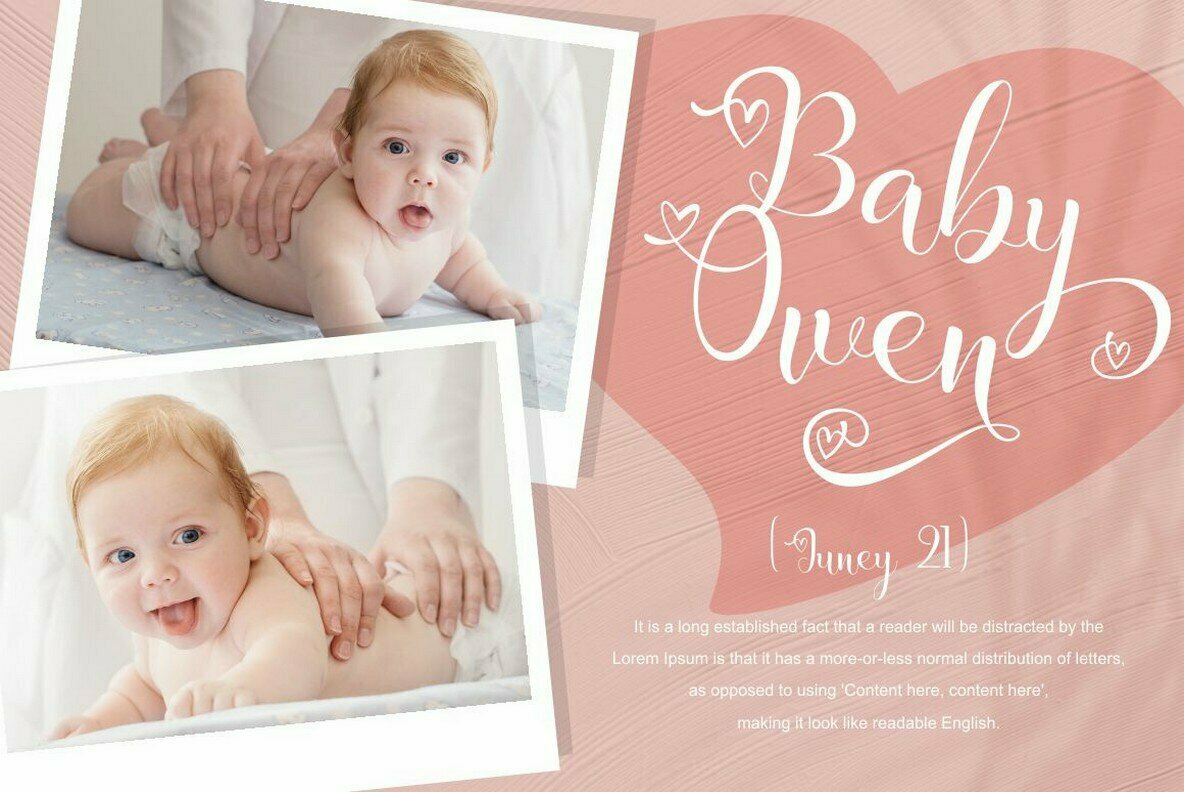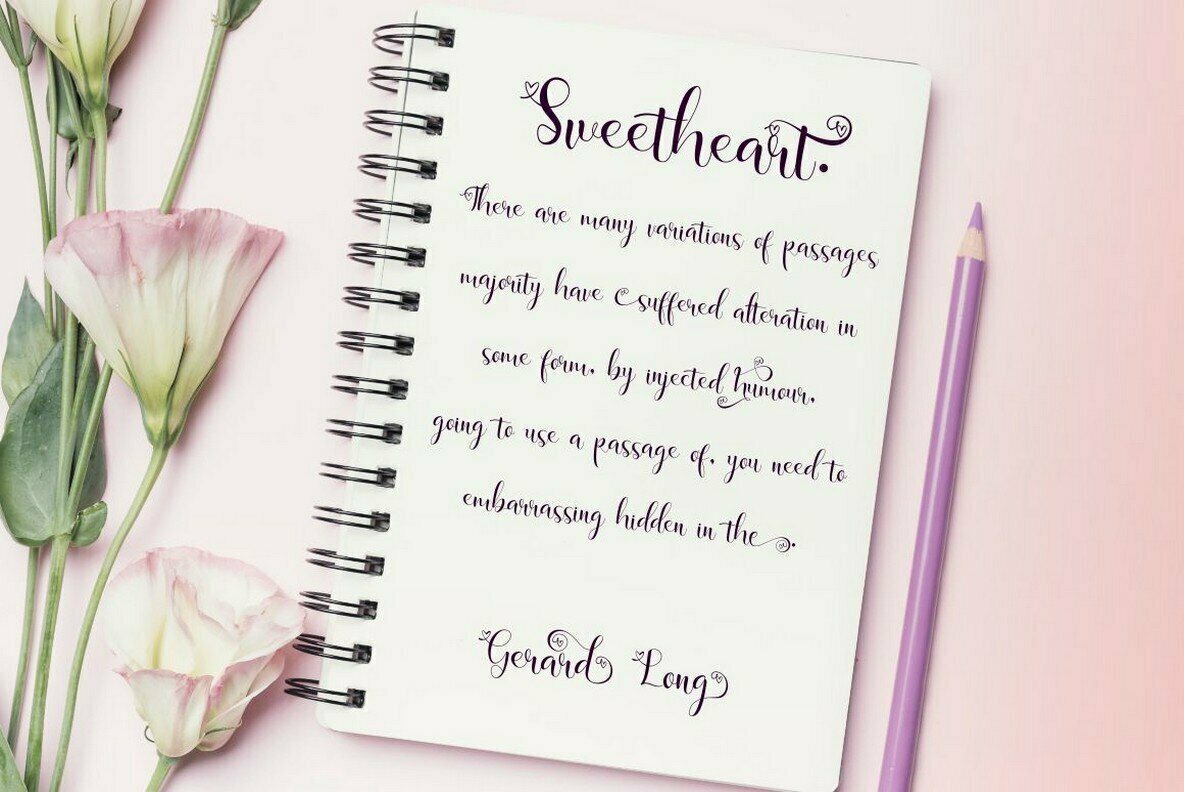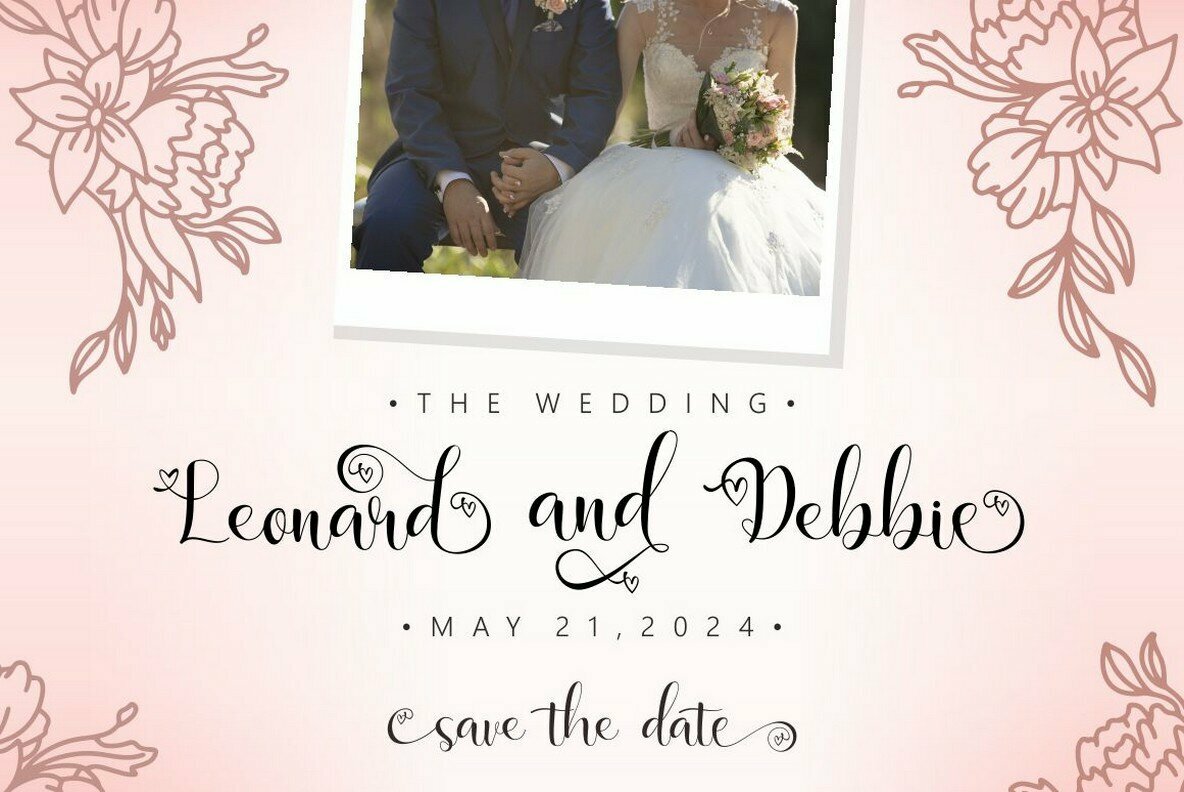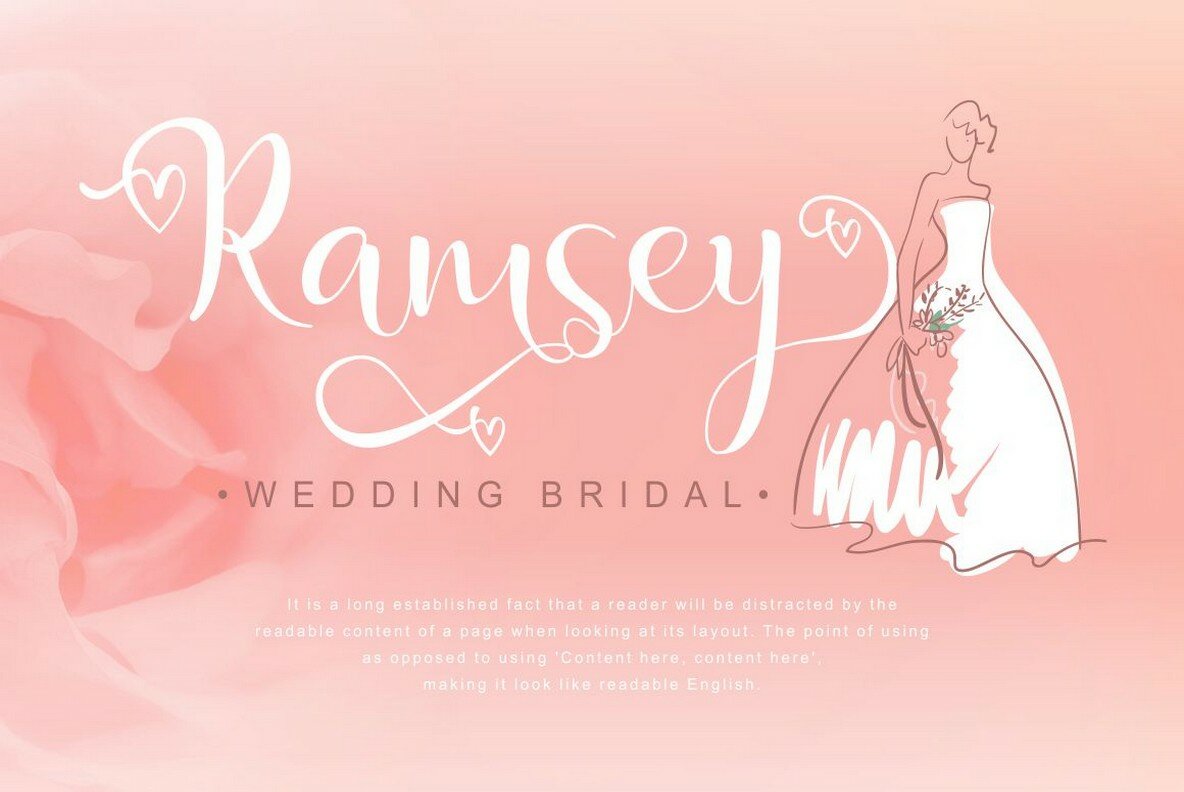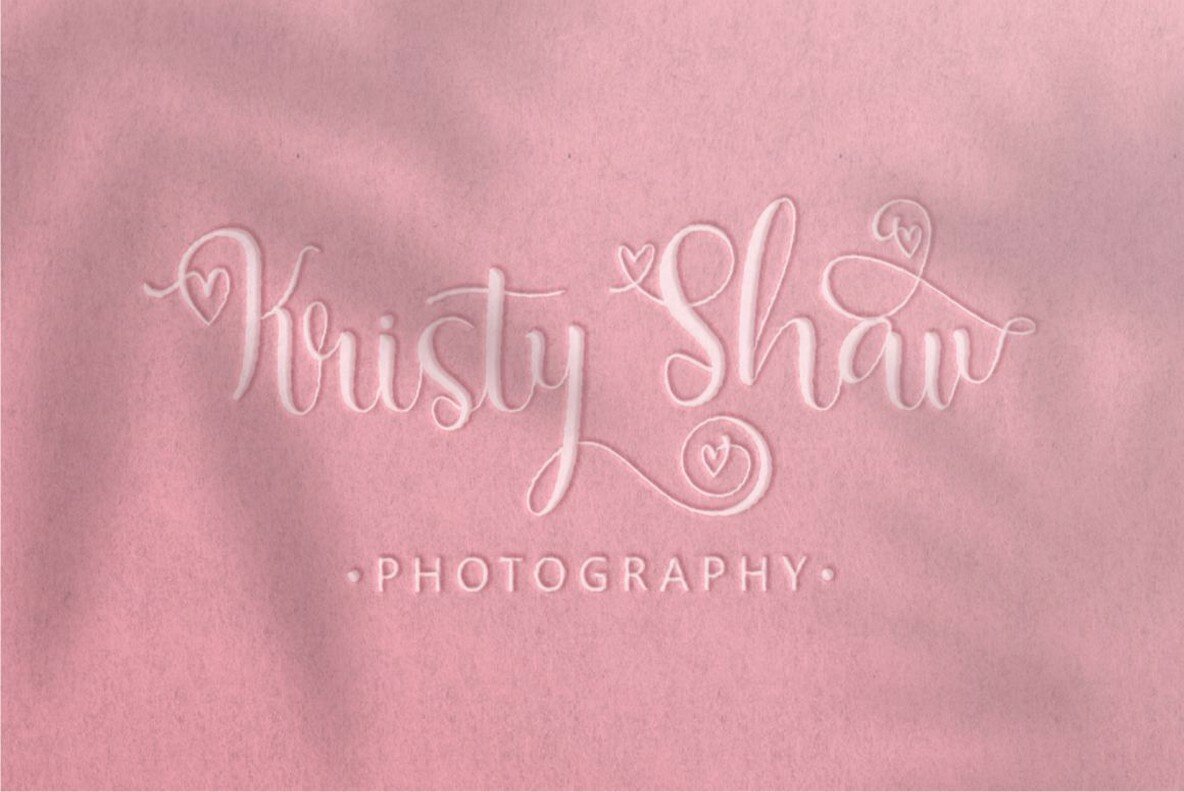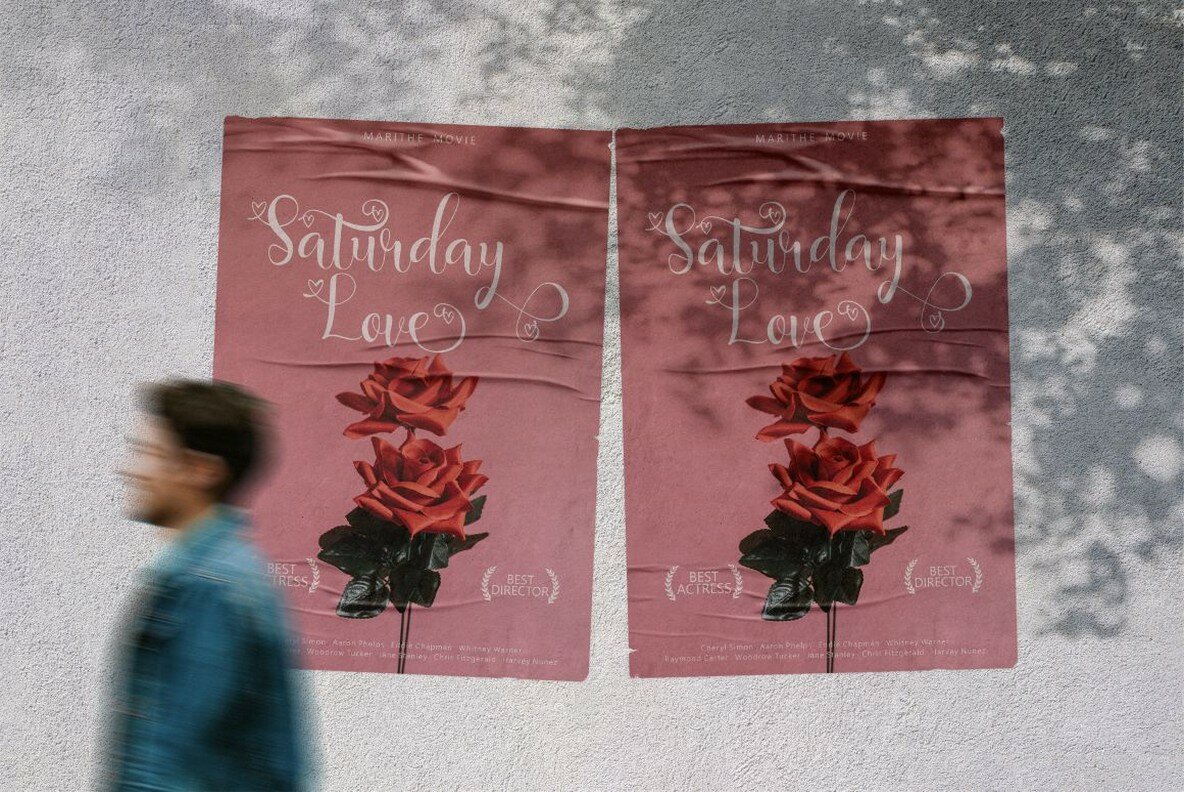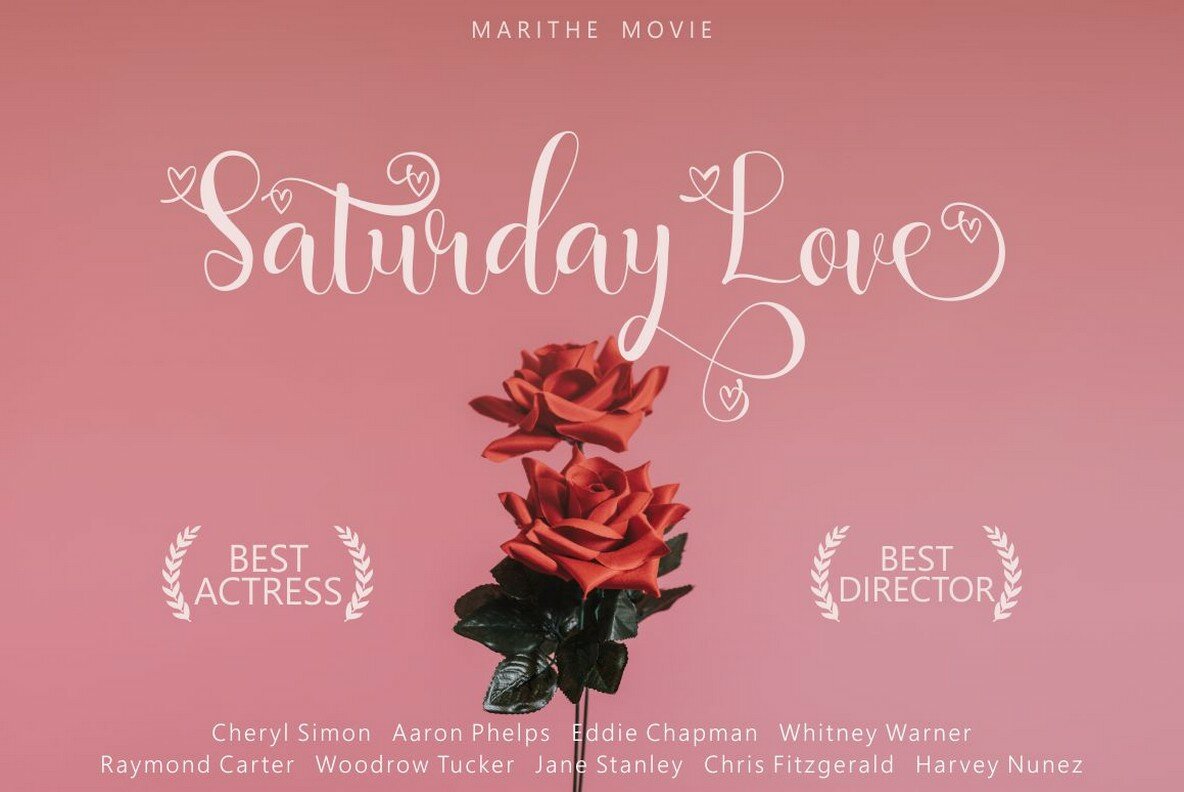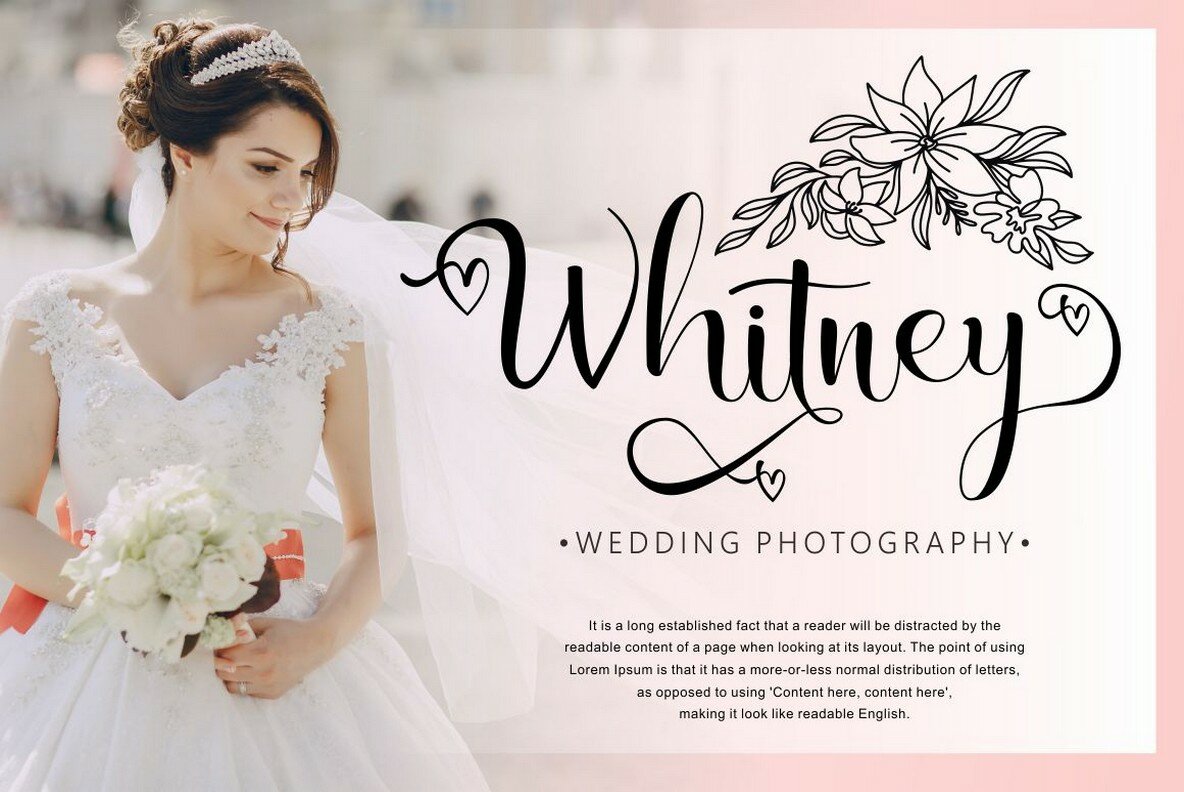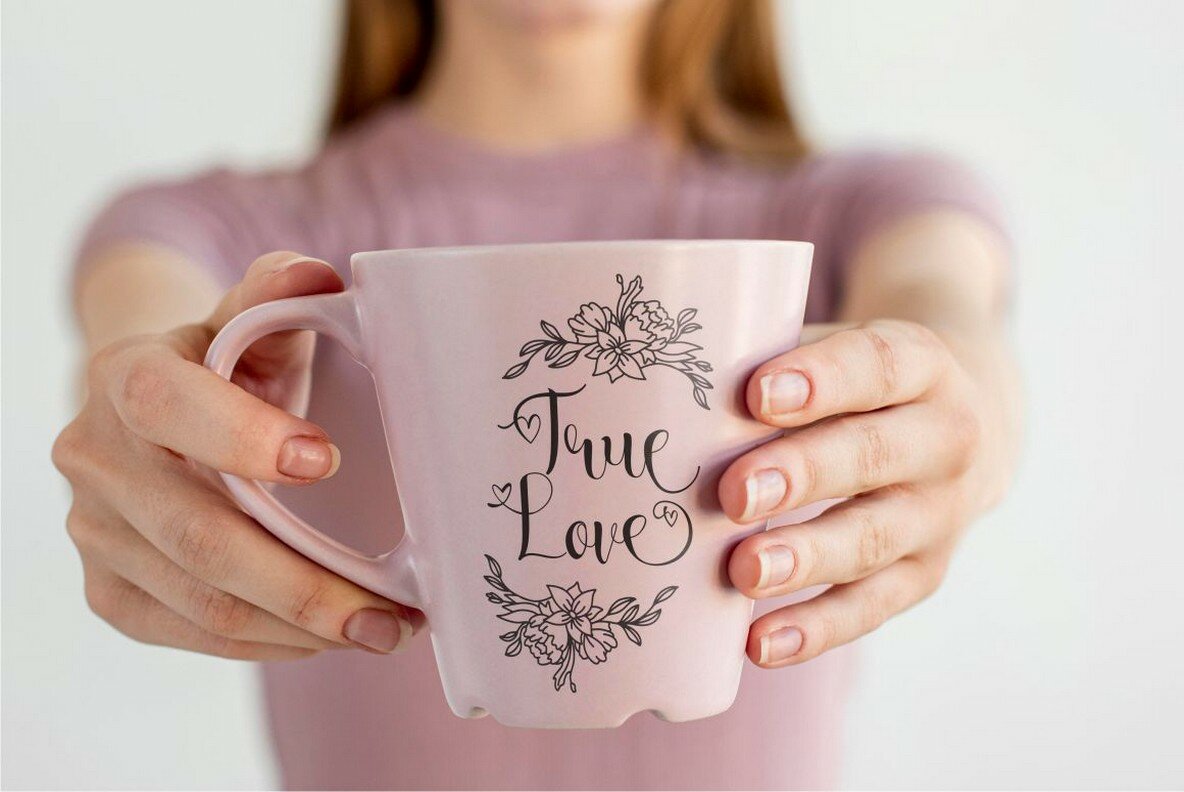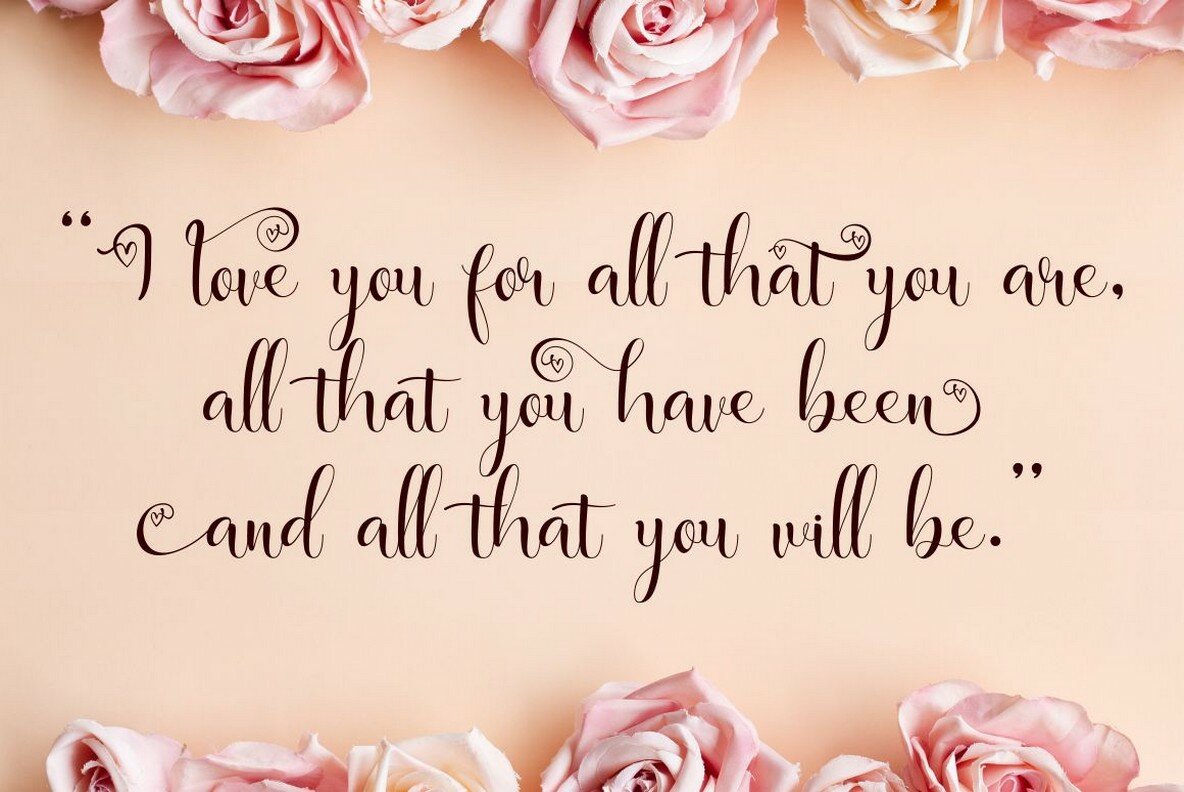
Marithe Font
Marithe
Marithe is a distinctive font, merging the elegance of modern calligraphy with a fresh, handmade appeal. Characterized by graceful hand strokes, it captures the essence of romance suitable for conveying the intimate charm of personal projects. Perfectly tailored for romantic-themed work, Marithe extends its versatility to various applications such as logos, branding, greeting cards, and more. The font’s sophisticated style adds a professional touch to any project requiring a touch of elegance.Marithe: Modern Calligraphy with Romantic Flair